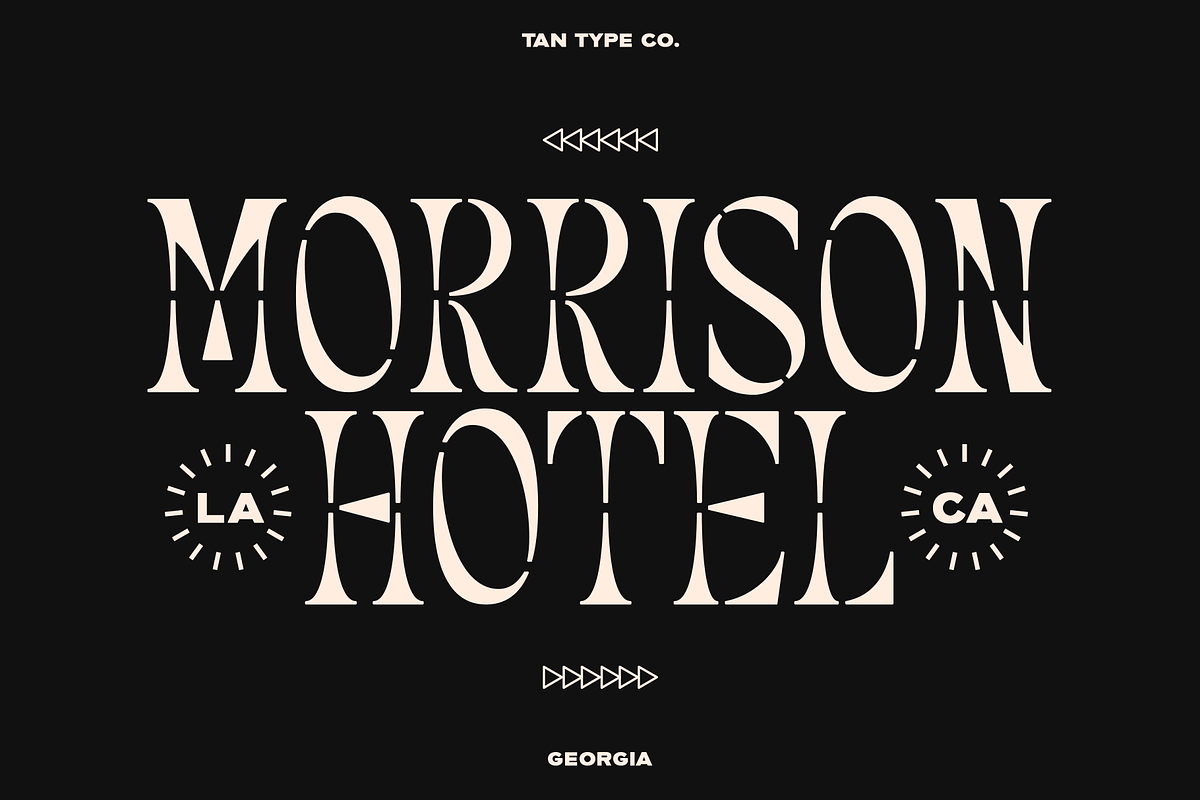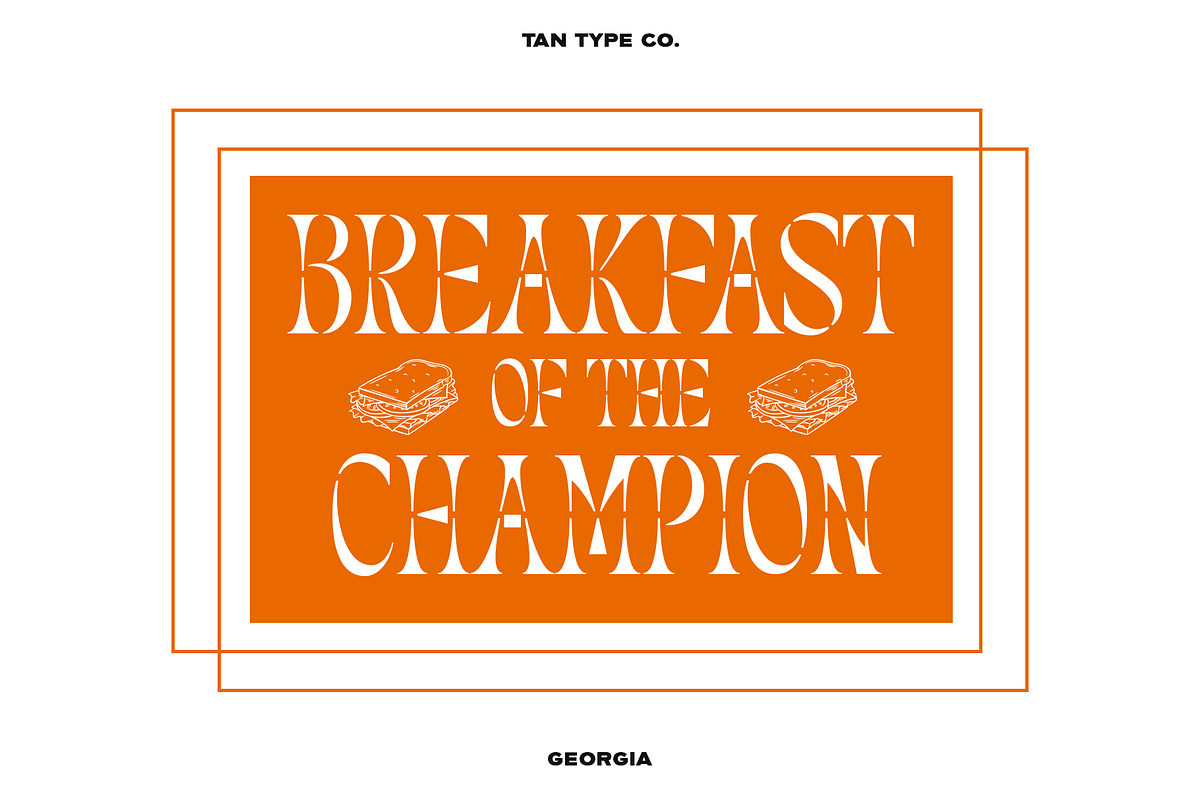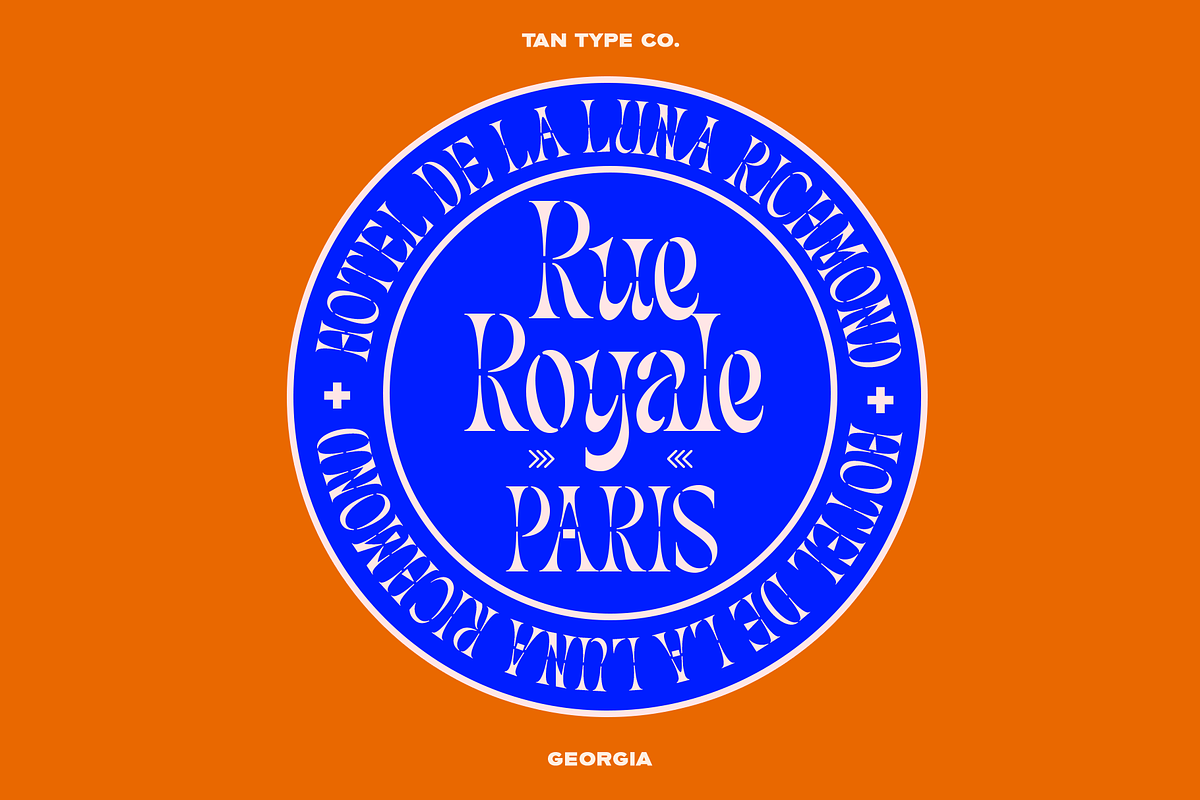
Tan Georgia Font
Tan Georgia is a display stencil serif. Fun to play with and perfect for any of your design needs. You can use this font for any purposes, such as a branding logo, poster, or even editorial.